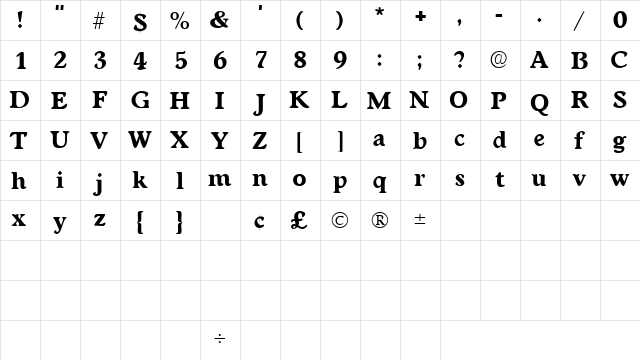
CupolaSSK Regular
Design Context for CupolaSSK Typeface
CupolaSSK takes a measured approach to typography — its balanced proportions and neutral character make it a reliable workhorse for both digital and print work.